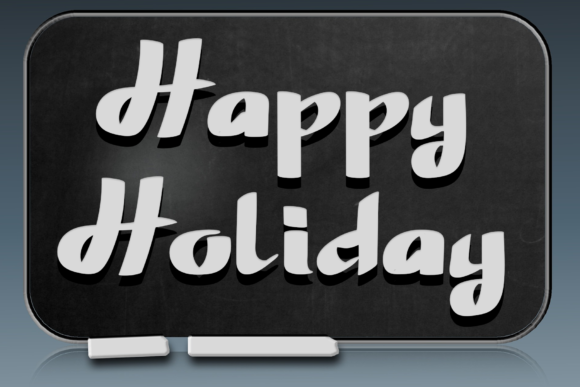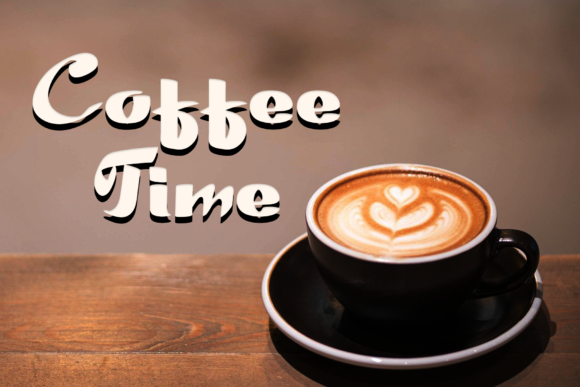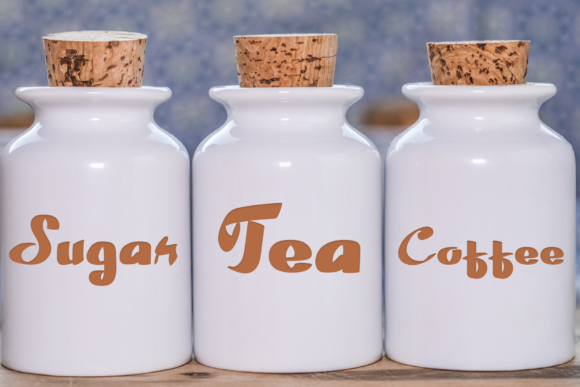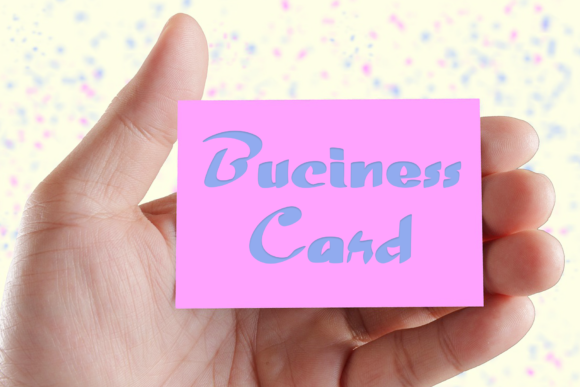
Christmas Queen Font
Christmas Queen is a unique and elegant handwritten font. Bold and neat, this font will match a wide range of designs, both formal and informal.